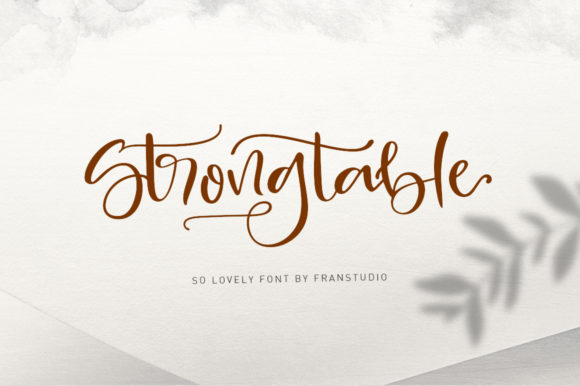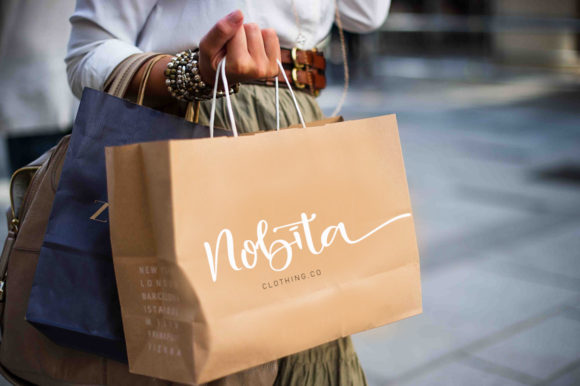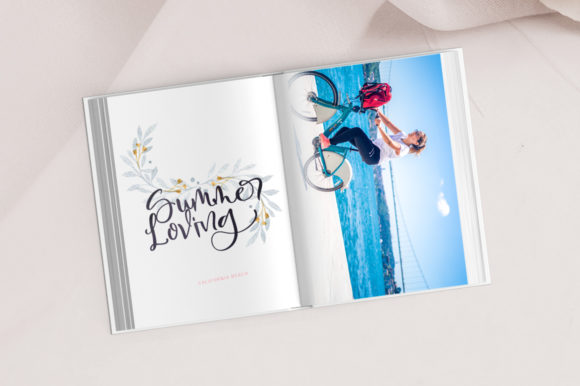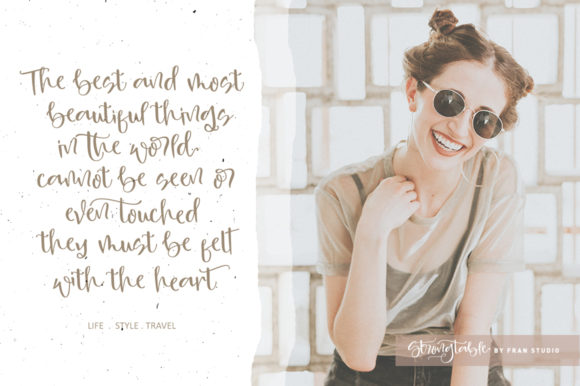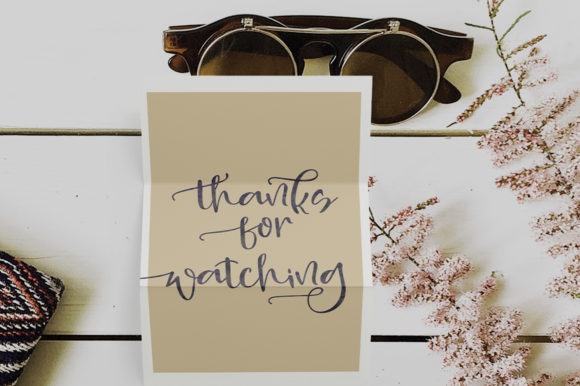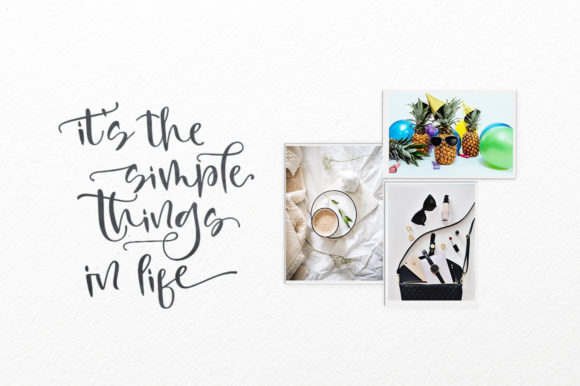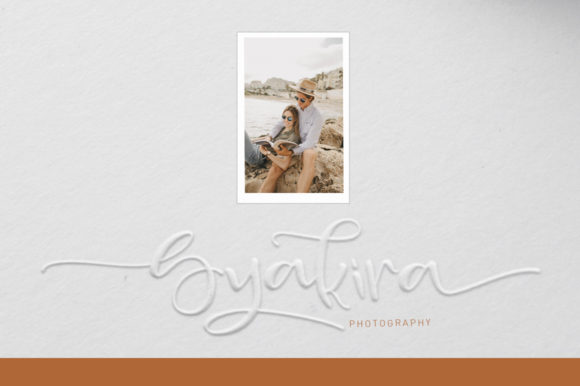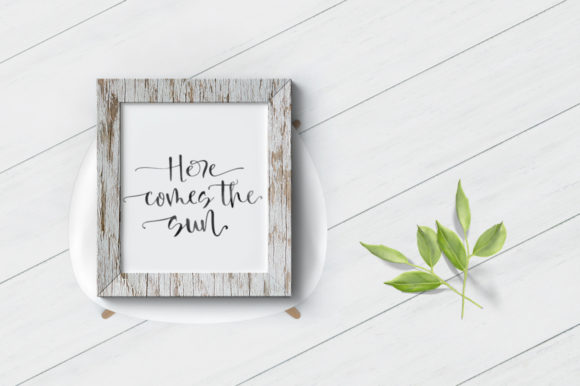
HomeScript FontsStrong Table Font Script Fonts Strong Table Font FacebookXPinterestWhatsApp Strong Table Font Poster 2 Strong Table Font Poster 3 Strong Table Font Poster 4 Strong Table Font Poster 5 Strong Table Font Poster 6 Strong Table Font Poster 7 Strong Table Font Poster 8 Strong Table Font Poster 9 Strong Table Font Poster 10 Strong Table Font Poster 11 Strong Table Font Poster 12 Strong Table Font Poster 13 About Strong Table Font Strong Table is a cool and fun script with a unique charm. It will turn any design idea into a true standout. DOWNLOAD NOW People also explored Costly Dishy Font Cheeper Font Bell Bottom Font Kiki Font You Are My Rainbow Font Workplace Font Della Della Font Mickaila Font Rose Font 515 0 TagsStrong Table Font Previous articleHousttely FontNext articlePink Gladiolus Font LEAVE A REPLY Cancel reply Comment: Please enter your comment! Name:* Please enter your name here Email:* You have entered an incorrect email address! Please enter your email address here Website: Save my name, email, and website in this browser for the next time I comment. Personal Use Free Aline Personal Use Free Read more about this font Krait Personal Use Free Read more about this font Awkward Personal Use Free Read more about this font Brittish State Personal Use Free Read more about this font BLOG How to Cut Any Font on Cricut: Convert a Font to SVG (Free) Turn any font into a clean SVG so it cuts crisp on Cricut - a quick 3-step workflow using a free font-to-SVG tool. Exploring Font Trends Fonts That Capture the Spirit of New York City Using Fonts in Digital Marketing: Tips to Strengthen Your Brand Identity